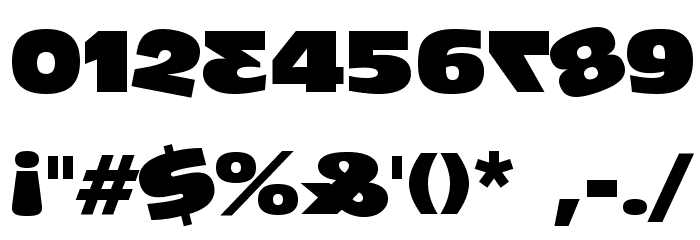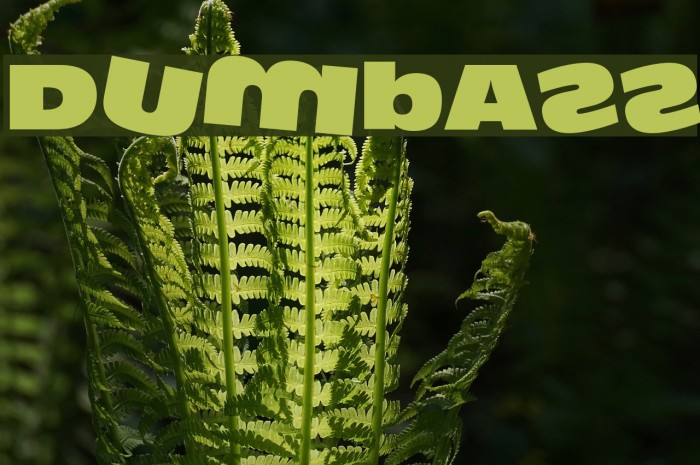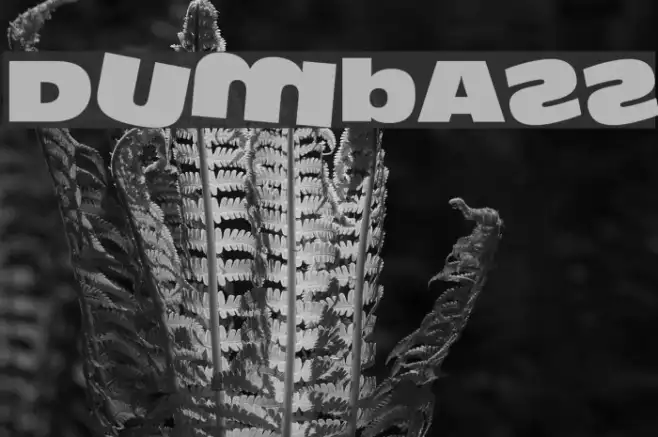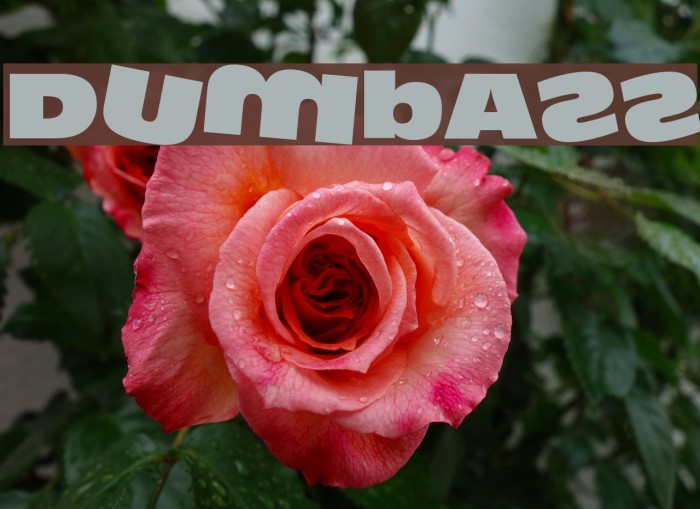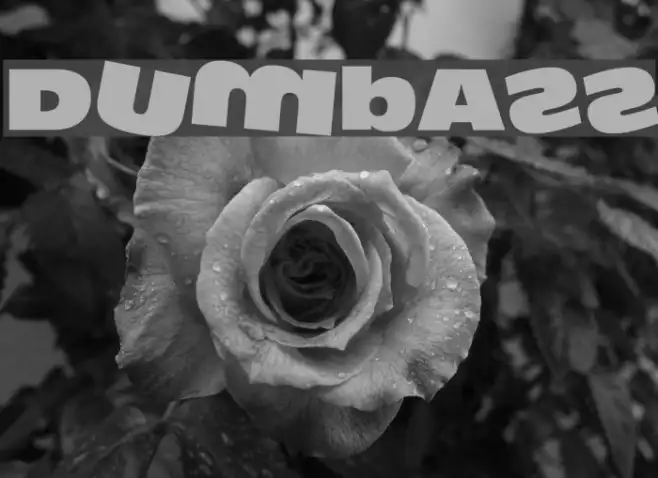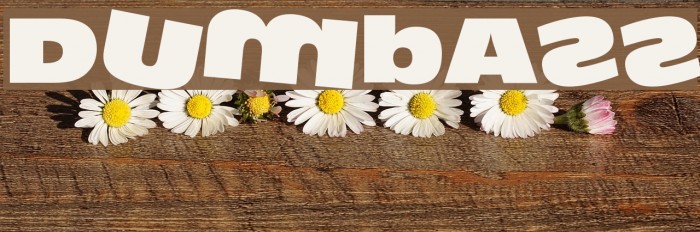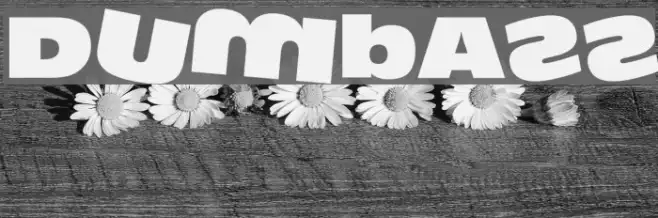
DumbAss Font
DumbAss Description
This font features a bold and playful design with exaggerated, thick strokes that give it a strong presence. The characters are slightly tilted and have a whimsical, cartoonish style, making them stand out with a fun and energetic vibe. The uppercase and lowercase letters maintain a consistent weight, contributing to a cohesive look. The numbers and special characters follow the same bold and dynamic style, ensuring uniformity across all glyphs. The font's unique character shapes and boldness make it suitable for eye-catching designs.
| Overall Style | Playful, Cartoonish |
| Proposed Projects | Ideal for children's books, comic strips, playful branding, and eye-catching posters. |